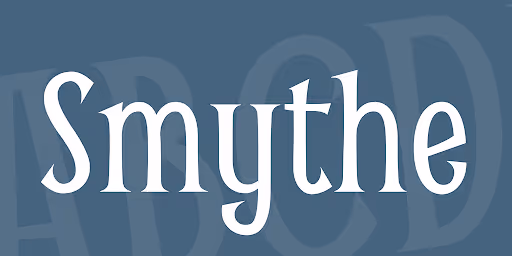
15 Hip Barber Shop Fonts For Cutting Edge Businesses
Modern barber shops are oases of hipster aesthetics. Some of these barber great fonts can help you appeal to this young, trendy audience and create a barber shop brand clients will love.
Picture a hipster barber: looks like a mix between a tattoo artist and a biker, with the hair and skincare routine of a model.
Well, it’s precisely the kind of eclectic style you’re sure to see with barbershop font styles.
Retro fonts from the 20th century
The second half of the 20th century (well, from the 1940s onward) is a huge source of inspiration for many hipster barbershops. Use these quirky fonts in combination with more modern and simplistic fonts to give your business a truly custom look.
There are plenty of great retro typefaces out there, so here are just a few options to give you a taste of styles you can go for.
1. Zing Rust (free and paid)
This font family comes from Fontfabric and includes an impressive 521 typefaces. While most of them require payment, 6 are completely free for both personal and commercial use. You can have a lot of fun with Zing Rust one, combining bold letters with script fonts and elegant serifs, as well as using icons and illustrations.
2. Nexa Rust (free and paid)
This font is popular with many Youtubers, but it also makes a terrific display font for any signage or headings on your web design. It is similar to Zing Rust, and you can also download 5 fonts from this font family for free.
3. Ranger ($25 - $240)
This font’s commercial license costs between $25 and $230, depending on the type of use. So it may not be ideal for a niche business just starting out. However, if you’re considering a rebrand, Ranger may give your business a retro edge that will help you stand out from the rest! It’s got a great 70s feel and if you remember the rad hairstyles people had back then, you’ll see how it can help your customers feel inspired!
4. Cinderela (from $39)
Don’t be put off by this font’s “girly” name! Cinderela is a gorgeous, versatile vintage style font you could easily imagine on a 1950s inspired car wash logo. Contact the graphic designer to obtain a commercial license.
Vintage barber shop fonts
Old English fonts and sign painting inspired typography are another major influence for modern barbershops. If you want your customers to feel like having their hair or beard trimmed is a special ritual, these vintage barber shop fonts can help take them back to a different era.
5. Hustlers Rough (from $16)
If you’d love to recreate vintage signage around your barbershop, Hustlers Rough can be a great choice. It’s very decorative and would look great on merch such as t-shirts and hats as well as your own line of grooming products.
6. Rumble Brave (from $15)
This gorgeous vintage barber shop font comes along with plenty of interesting ornaments that you can use to really make signage stand out. Hiring a print design agency to help you with this task might be advisable.
7. Bridgnorth (free)
Blackletter or gothic style of classic old English fonts can sometimes be a little hard to read. That’s why this updated modern version is a truly marvelous choice to give your business a historic look without compromising the clarity of the message.
Intricate calligraphy fonts
Remember what we said about being eclectic? Well, a combination of different font styles is a terrific way to do that. You can pair a chunky retro font with a nice cursive script font to strike that perfect balance between “manly” and artisanal.
8. Admiral CAT (free)
Retro styles and cursive fonts with elegant ligatures are definitely popular with modern barbershops, but sometimes being a little different can go a long way. Admiral CAT is precisely the kind of quirky middle ground of style that will give your barber business a competitive edge. And best of all: it’s completely free for both commercial and personal use!
9. Moonline Handwritten Font (from $15)
Moonline is a terrific barber font to pair with some bold lettering, for example vintage slab serifs. It’s delicate but the lines still aren’t too thin, making it another great option for signage, like a plate with your working hours.
10. Monoline Script Font (from $15)
This is a very similar cursive font, with a slightly more modern look. It has gorgeous ligatures which can make it a little difficult to read in smaller sizes. Used sparingly, however, Monoline Script could make for some pretty amazing barbershop logo ideas.
11. Albertiny (from $29)
This unique font combines brush strokes and luxurious swashes to create a truly authentic look. It’s not free for commercial use, but honestly, an outstanding design is worth paying a little extra and this is the case with Albertiny. It’s an aesthetically pleasing typeface that your customers will surely notice and remember.